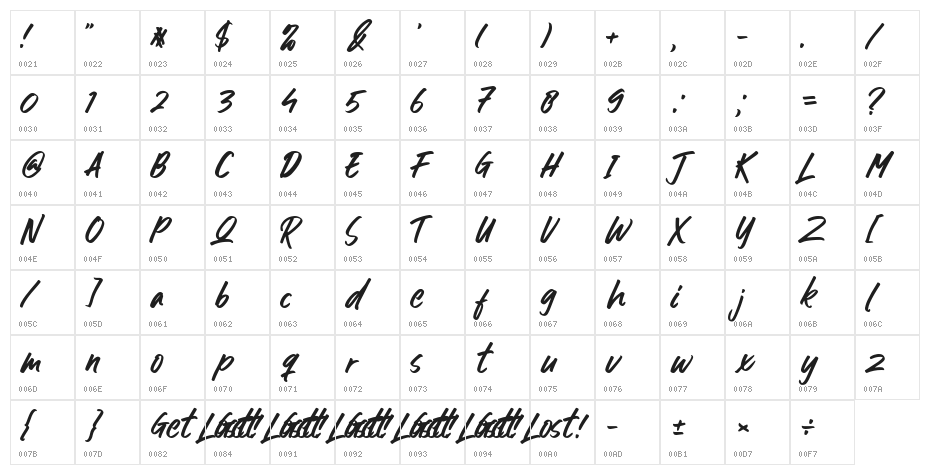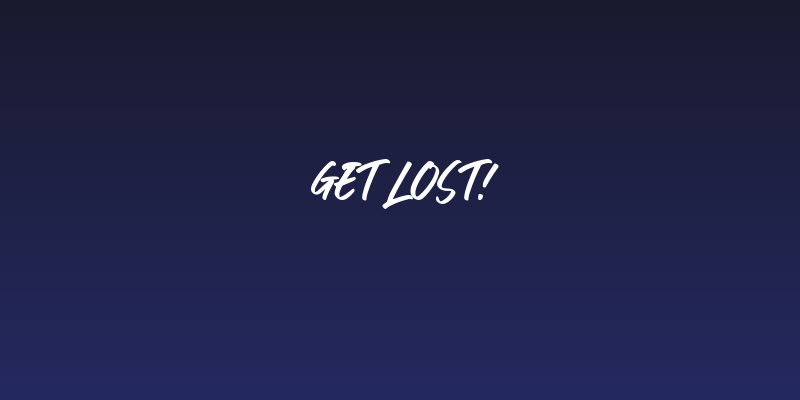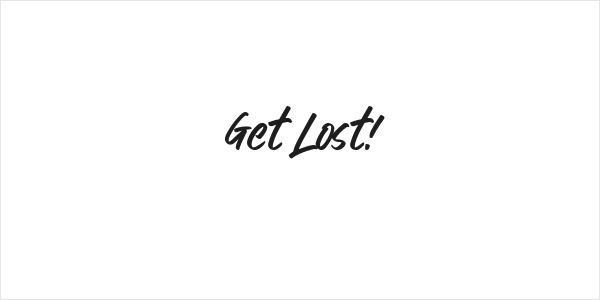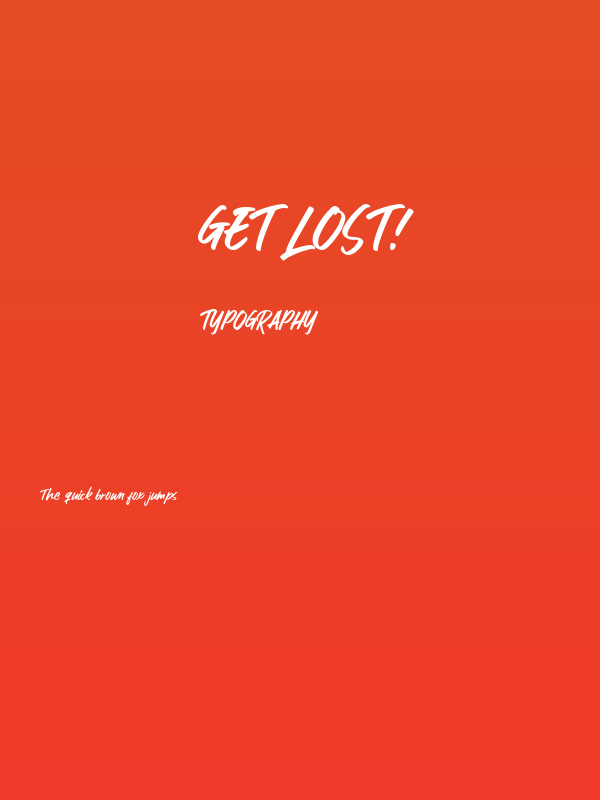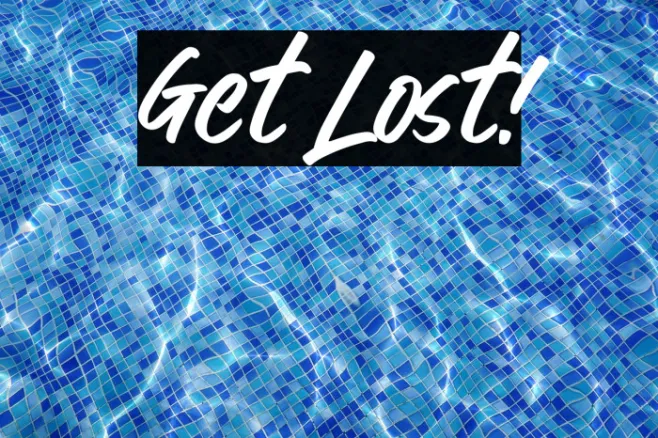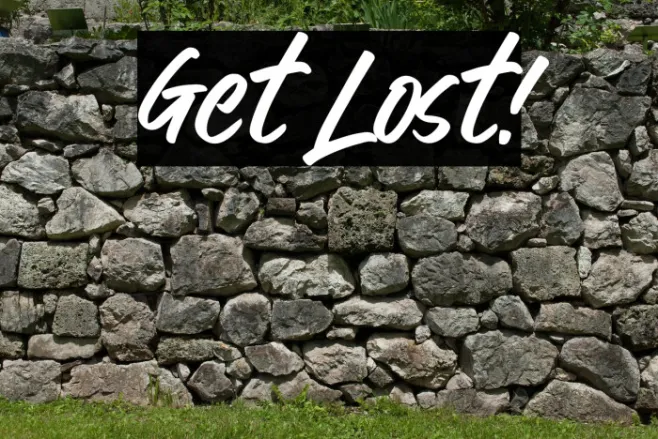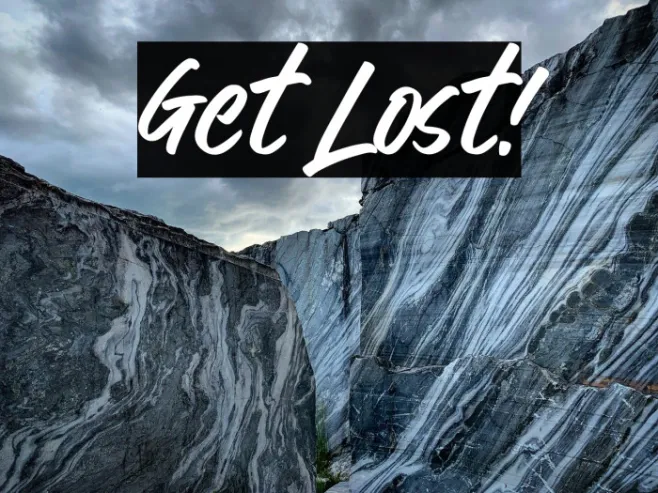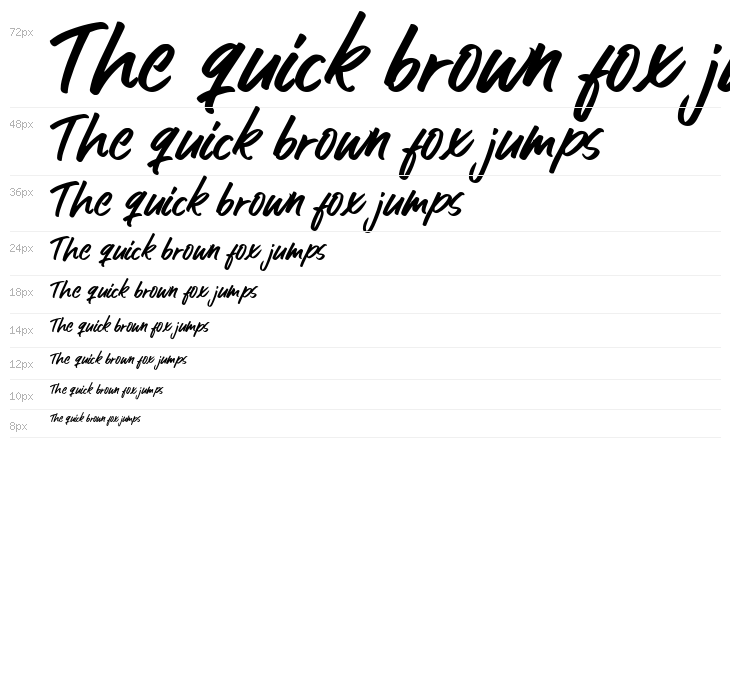
Get Lost! Font
Get Lost! Description
This font exudes a dynamic and energetic vibe with its bold, flowing script style. The characters are crafted with a sense of movement, featuring thick strokes and a slightly slanted orientation that adds to its casual and handwritten feel. The uppercase and lowercase letters maintain a consistent style, with rounded edges and smooth curves that enhance its legibility. Numbers and special characters are equally expressive, fitting seamlessly into the overall design. This font is perfect for projects that require a personal touch, such as invitations, branding, or social media graphics.
| Proposed Projects | Ideal for invitations, branding, social media graphics, and any project needing a personal, lively touch. |